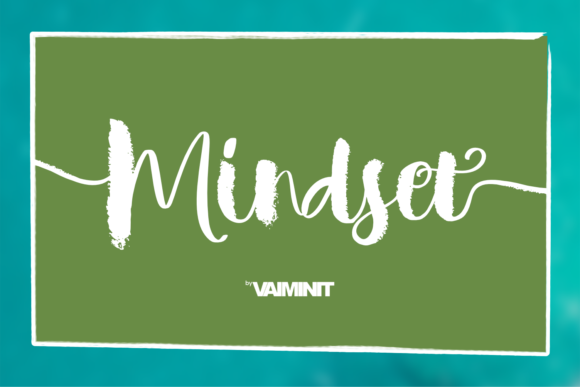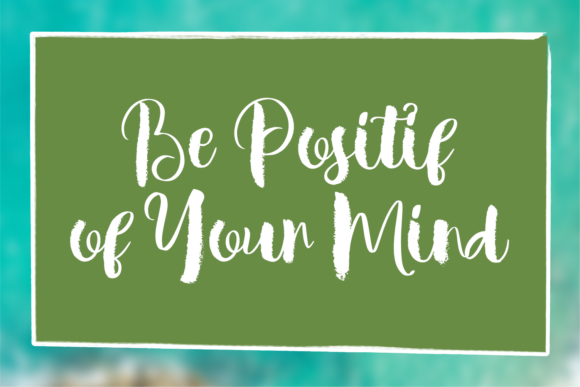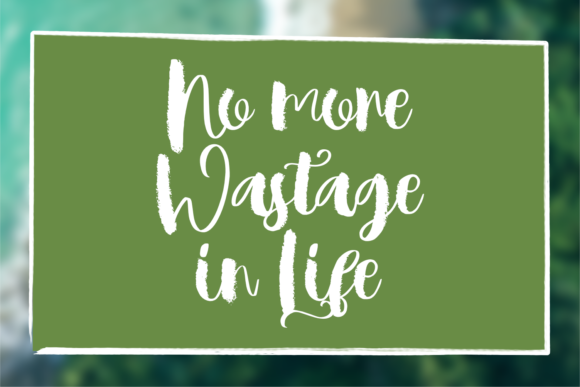
About Mindset Font
Mindset is a cool and trendy handwritten brushed font. Whatever the topic, this font will be a great asset to your font library, as it has the potential to enhance any creation. This font is PUA encoded which means you can access all the glyphs and sweeps easily!